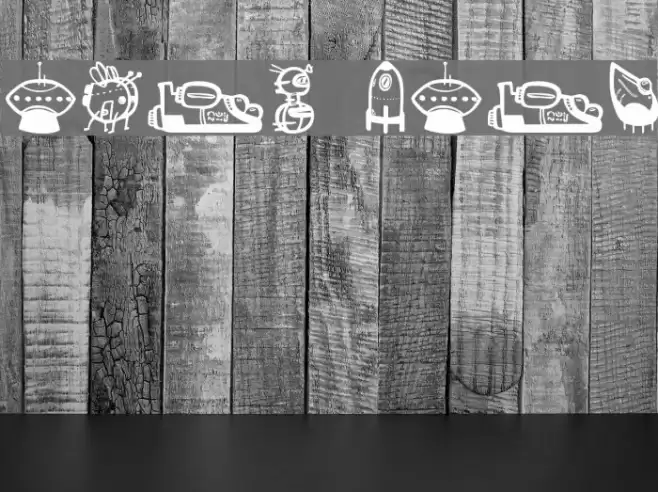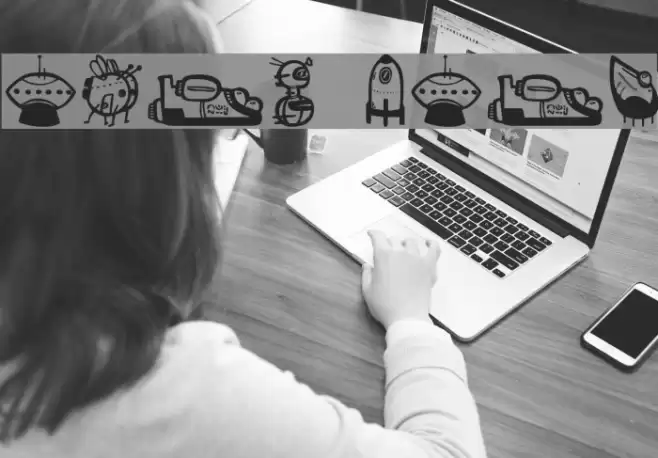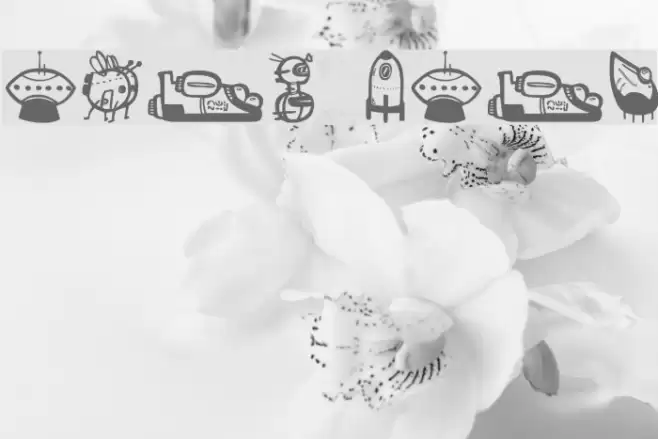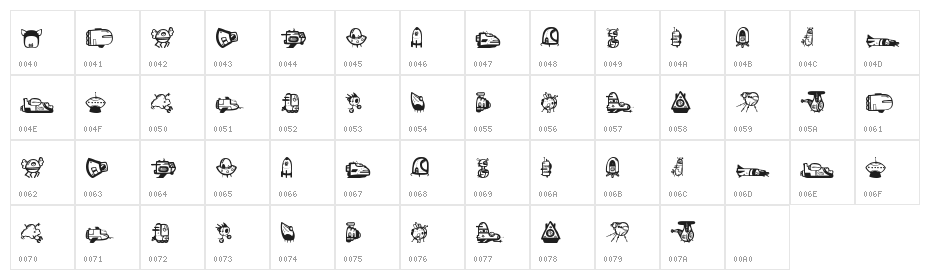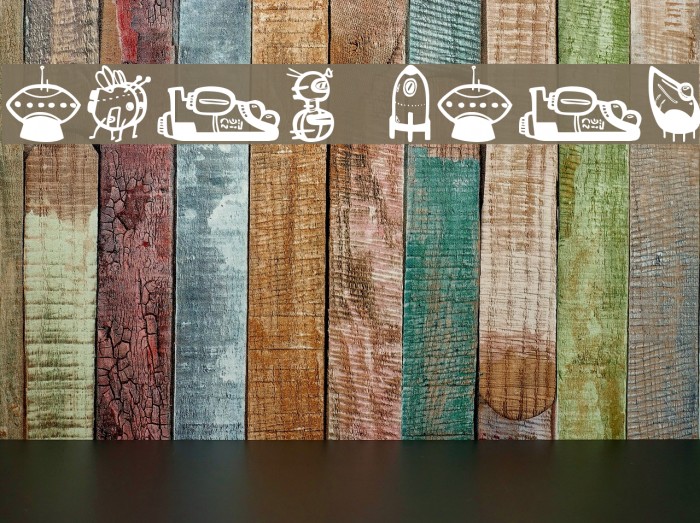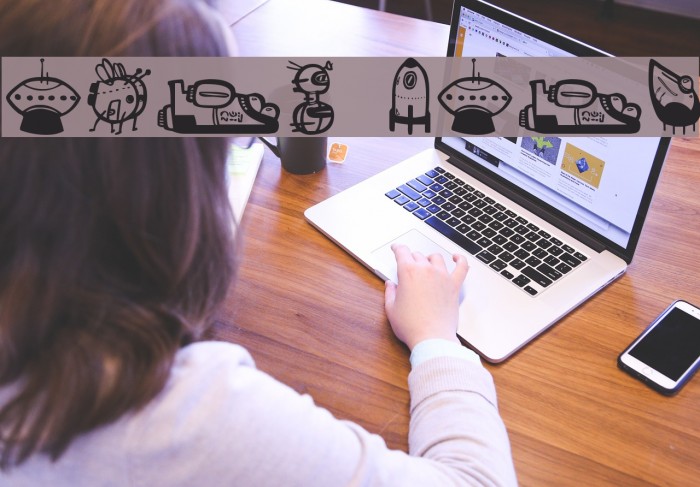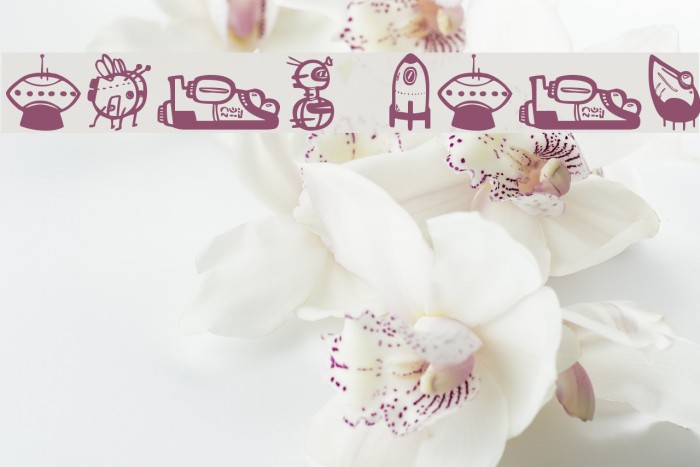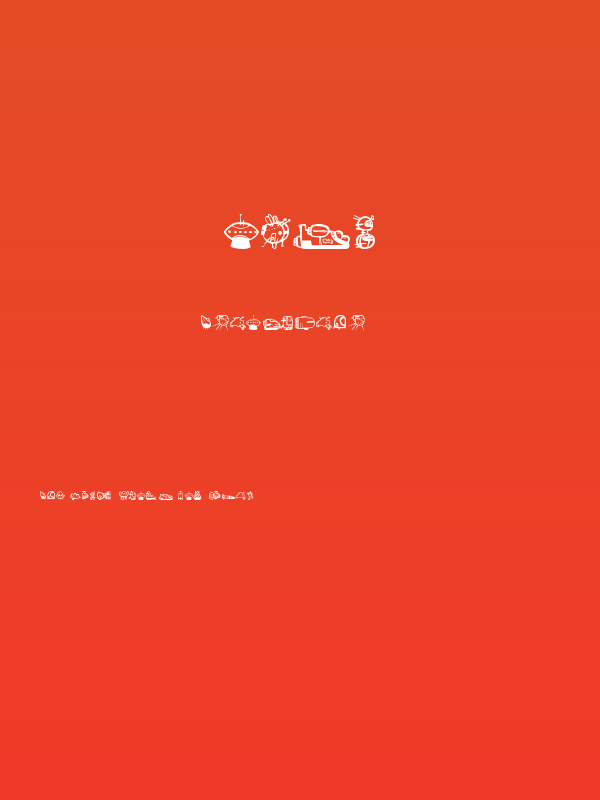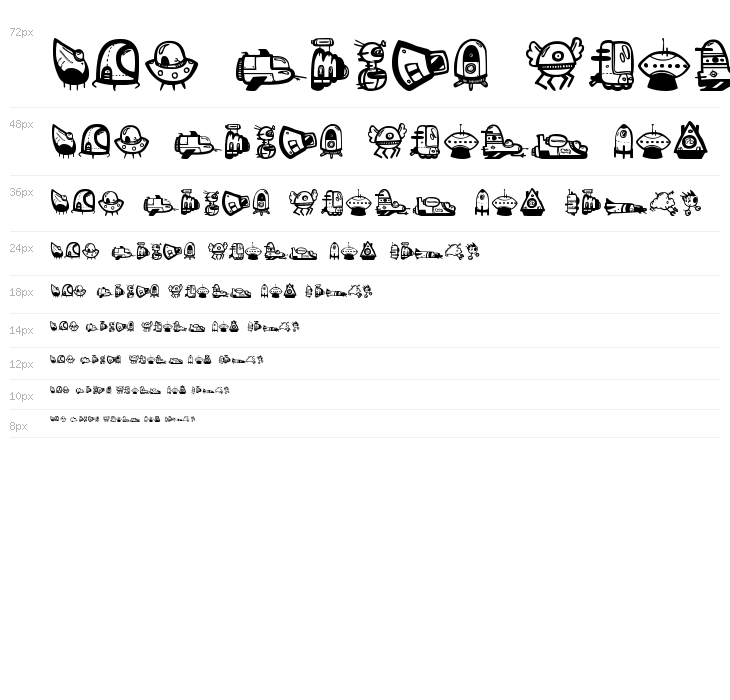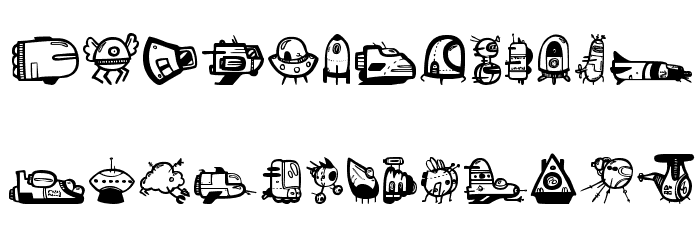
ovni Font
ovni Description
This is a playful and whimsical decorative font featuring a variety of alien and spaceship-themed illustrations. Each character is uniquely designed to resemble different extraterrestrial creatures and spacecraft, making it highly distinctive and imaginative. The font is characterized by its bold and cartoonish style, with each glyph presenting a detailed and creative depiction of sci-fi elements. The characters are well-spaced, allowing each design to stand out individually. This font is perfect for projects that require a fun and quirky touch, especially those related to space, science fiction, or children's themes.
A whimsical decorative font with alien and spaceship-themed illustrations.
- Proposed Projects: Ideal for children's books, sci-fi themed posters, party invitations, and creative branding projects.
- Use Case: Logos, Posters, Creative Branding